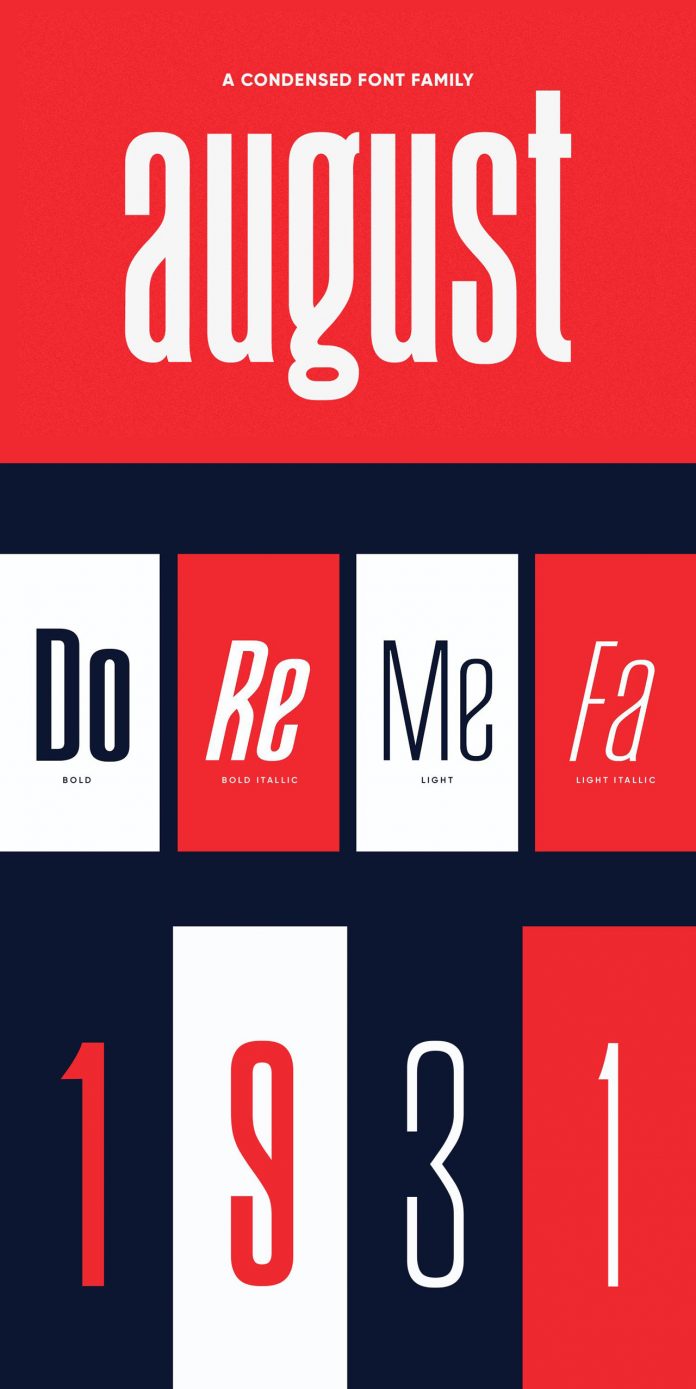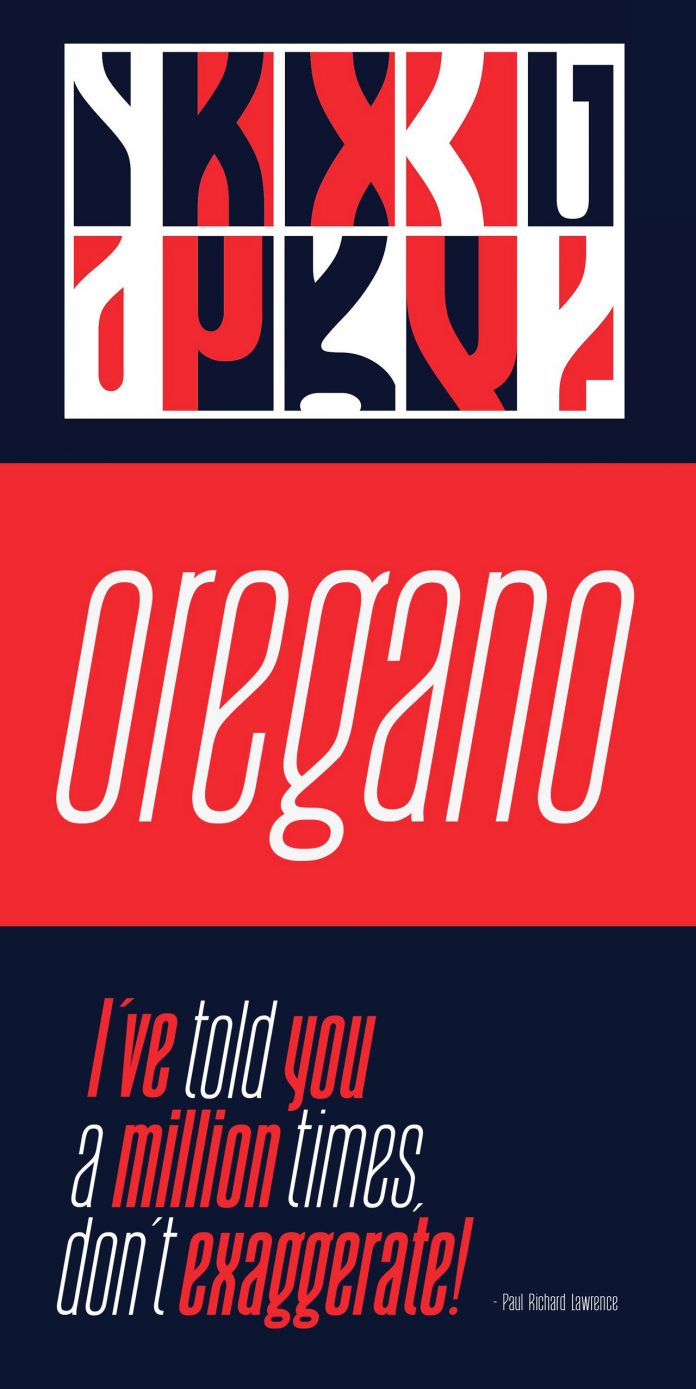
August, a condensed font made by type designer Ellen Luff.
The August font is based on a unique condensed sans-serif typeface. Equipped with two weights plus matching Italics, it was designed by Ellen Luff for eye-catching headlines without sacrificing legibility. August is performing best on a large scale as used on poster designs, billboards, signage, just to name a few. All four included styles offer multiple language support and come with upper and lower cases, numerals, and extended punctuation. To learn more, just click on the following link or have a look at the images below.